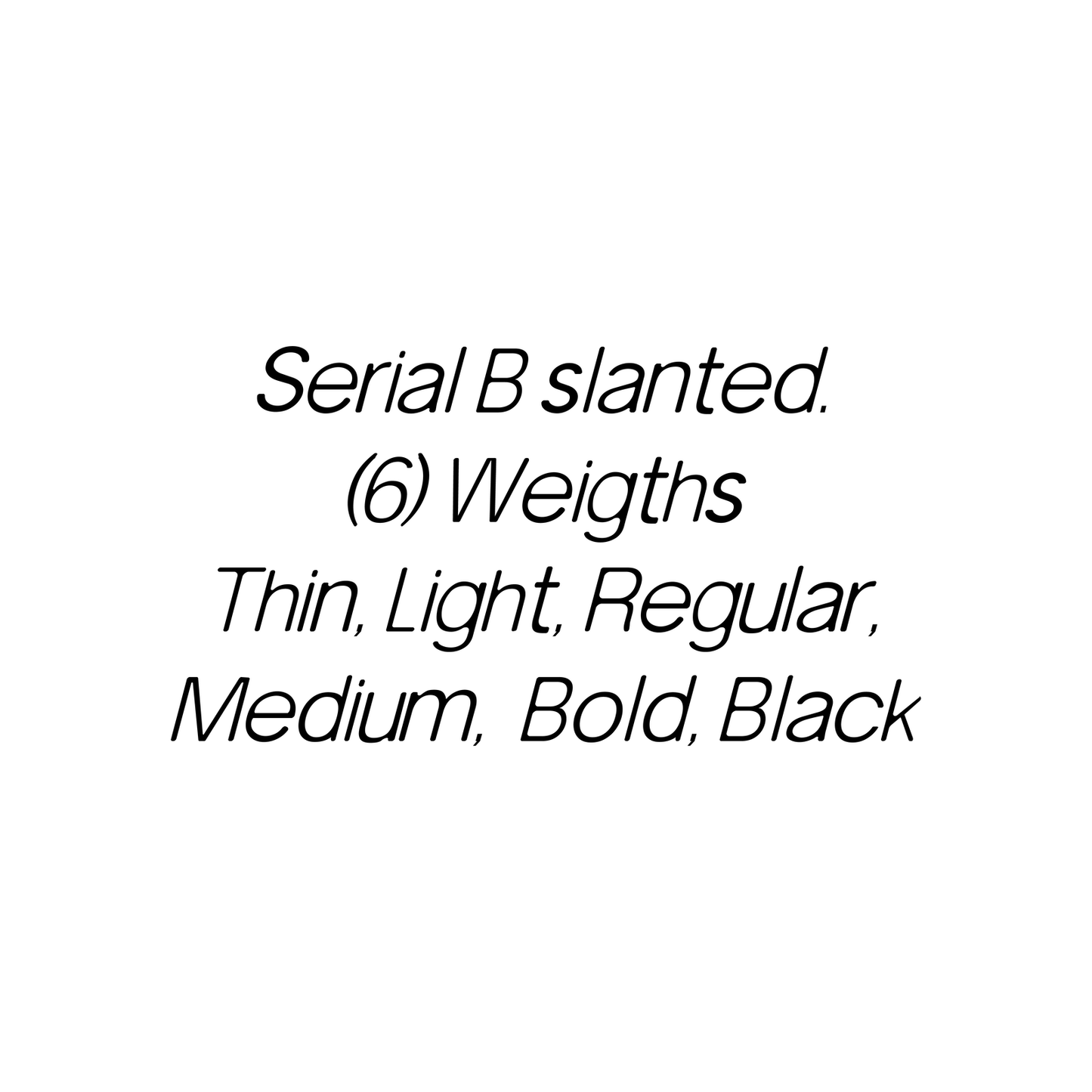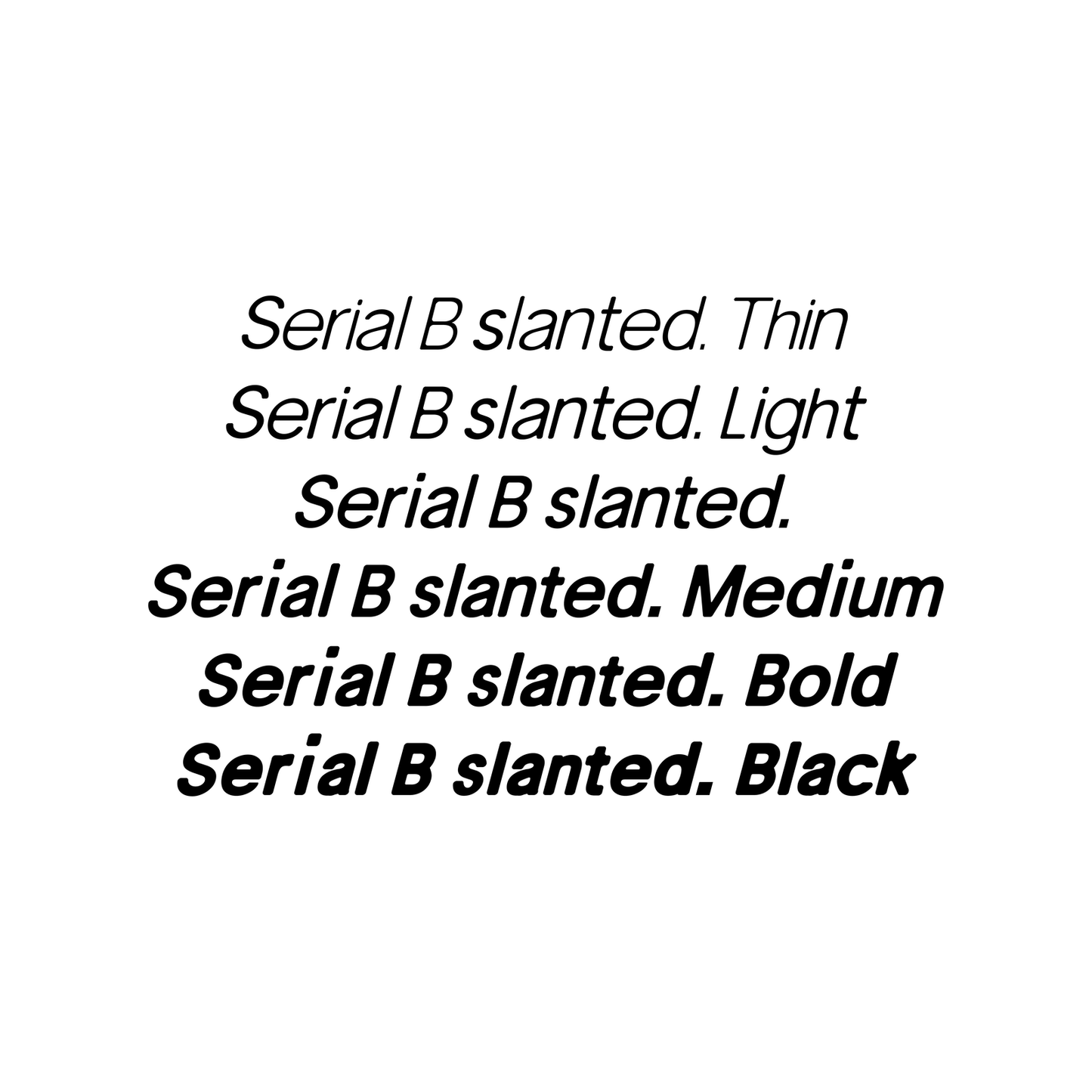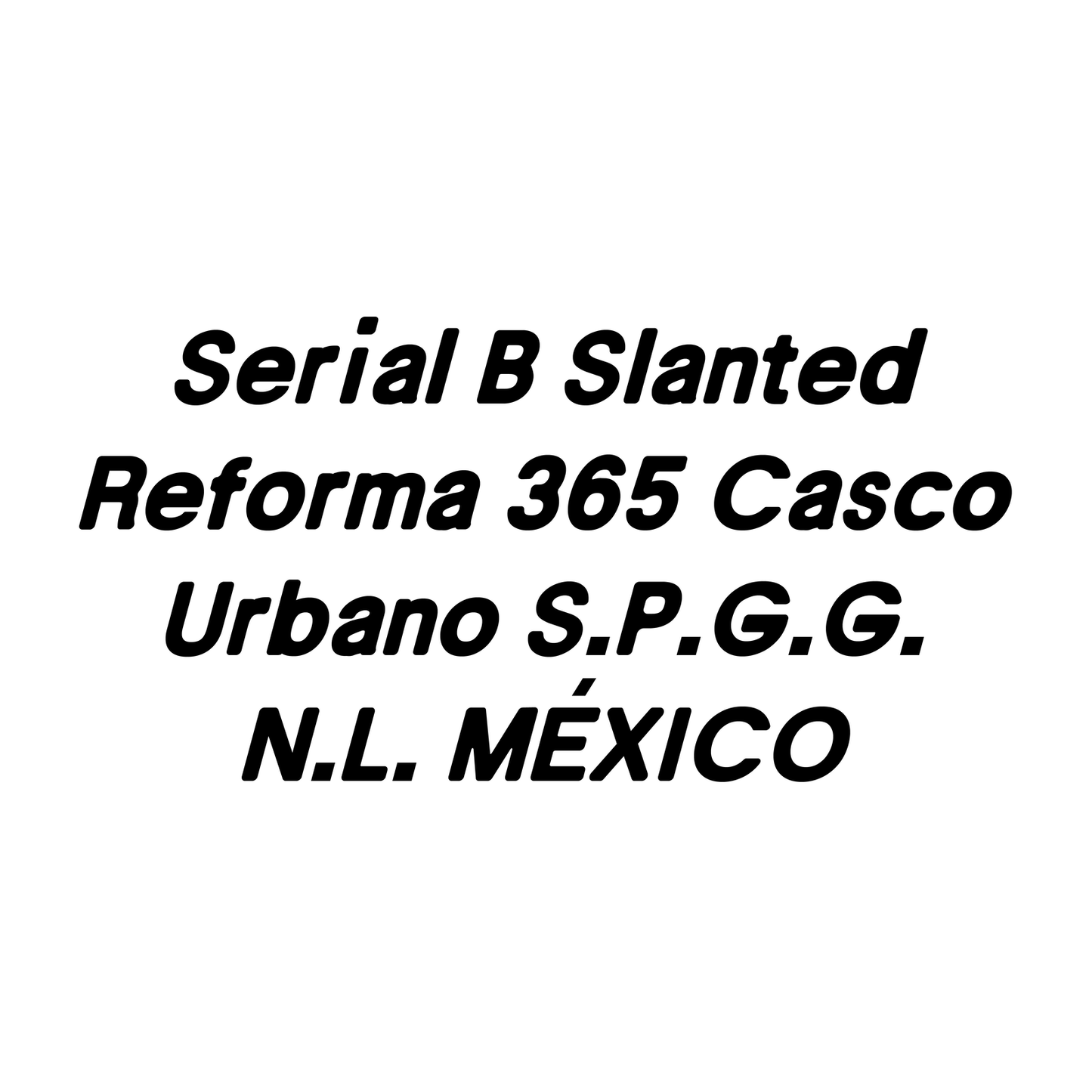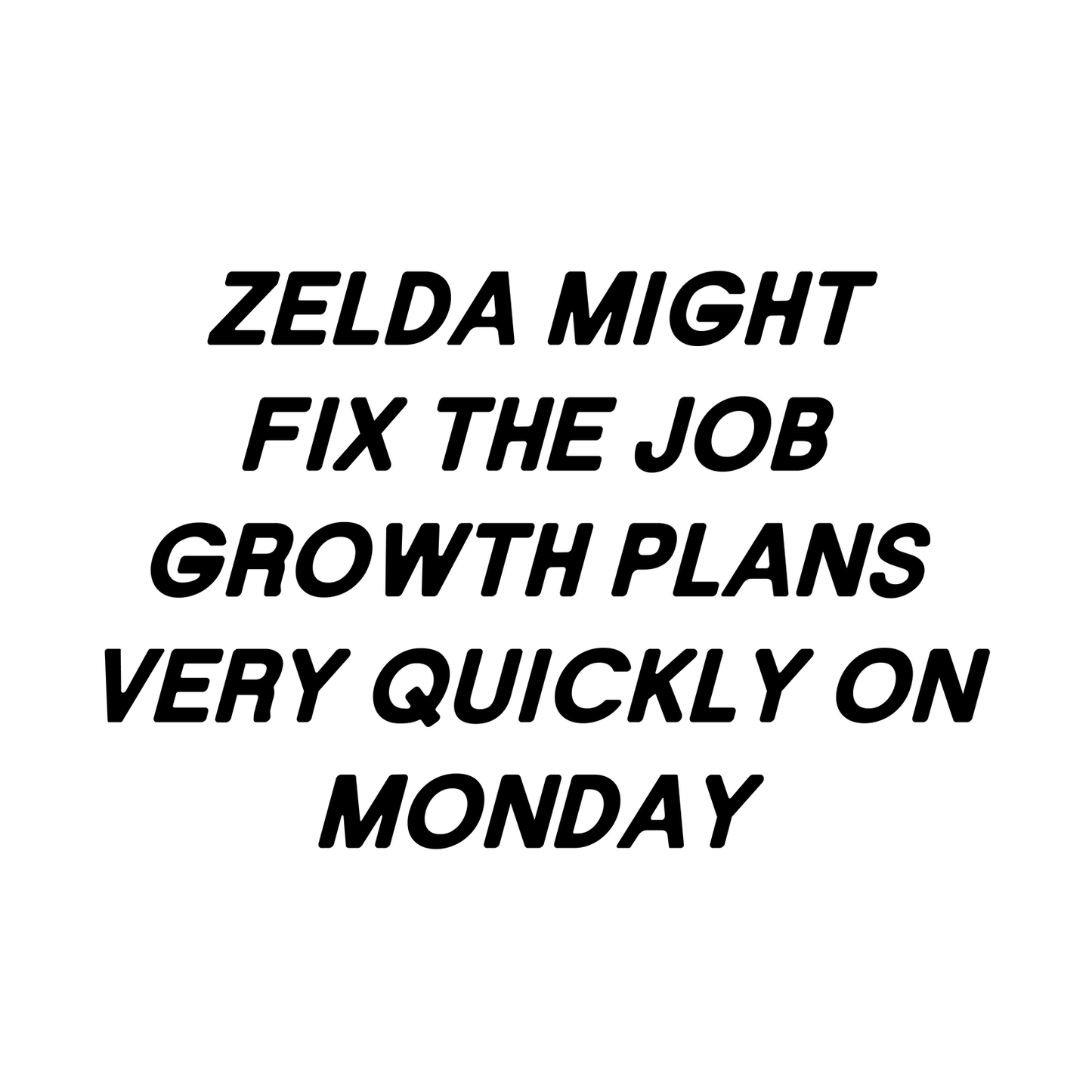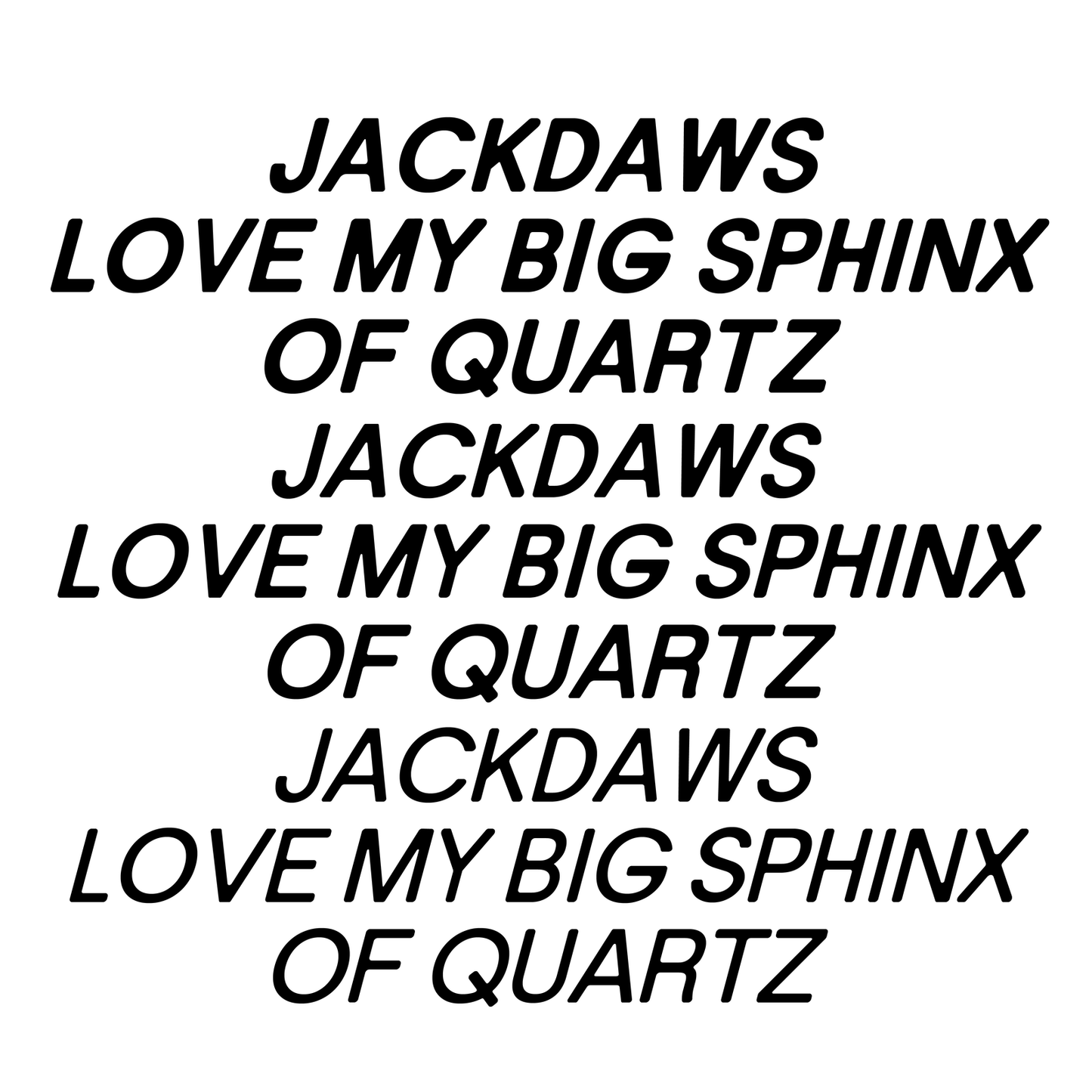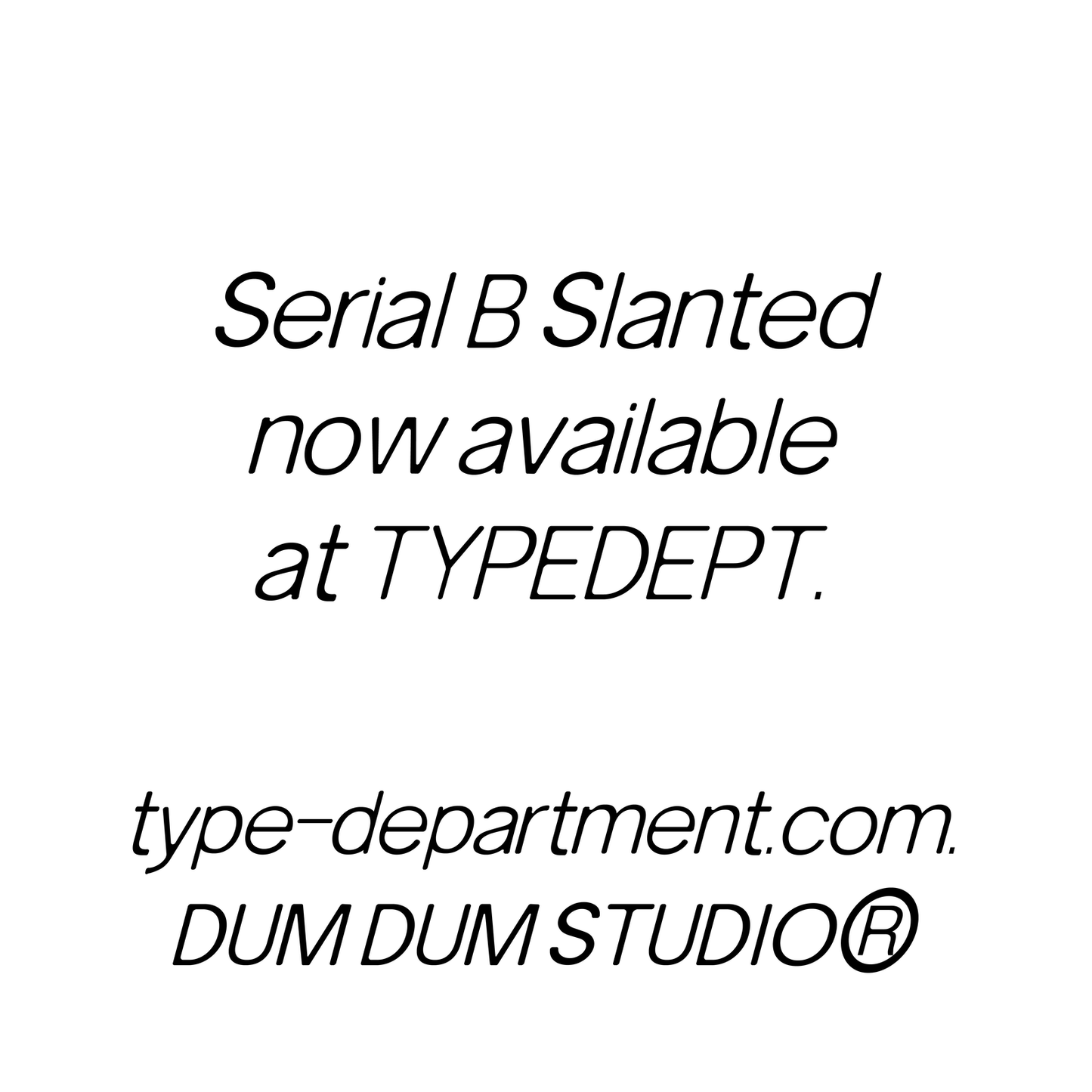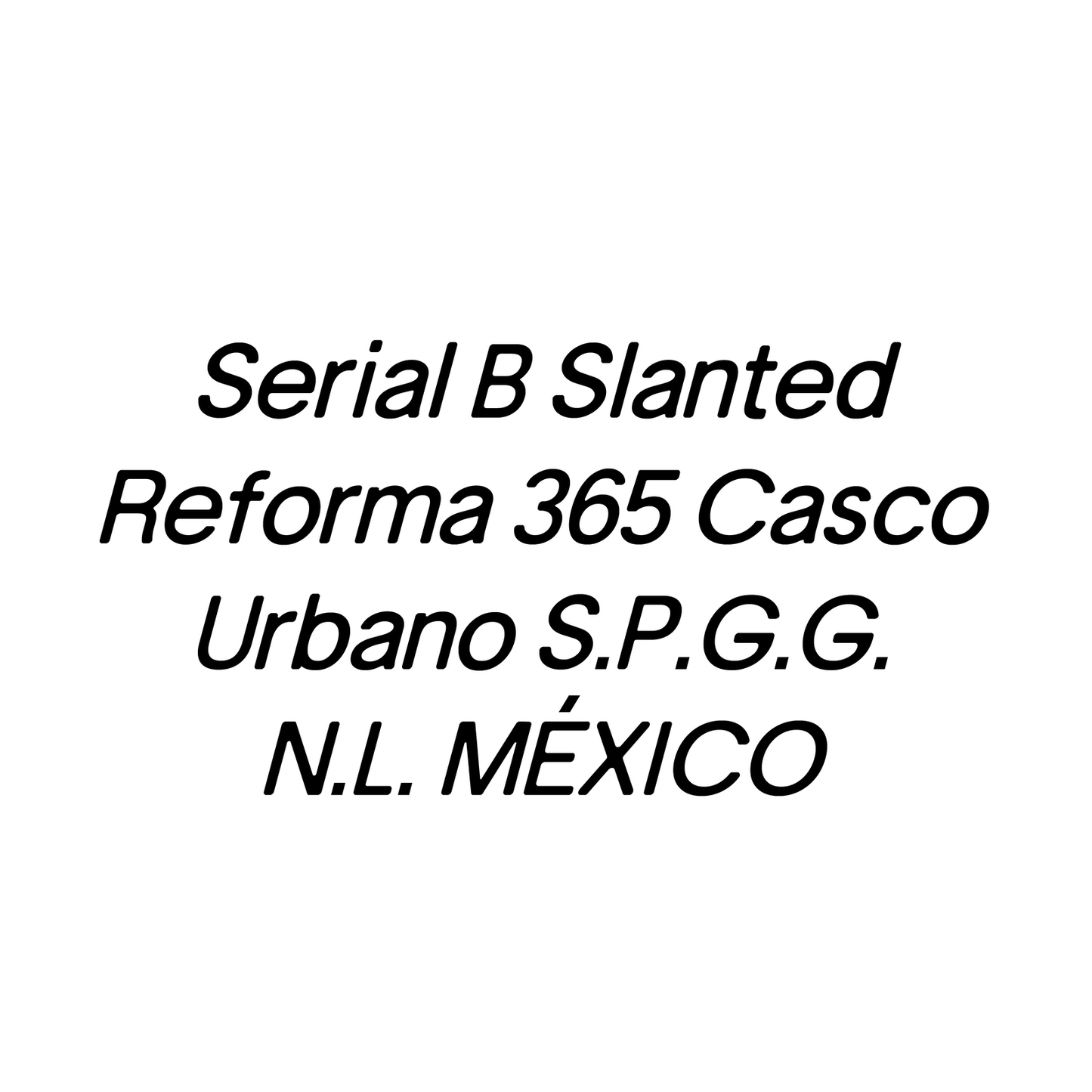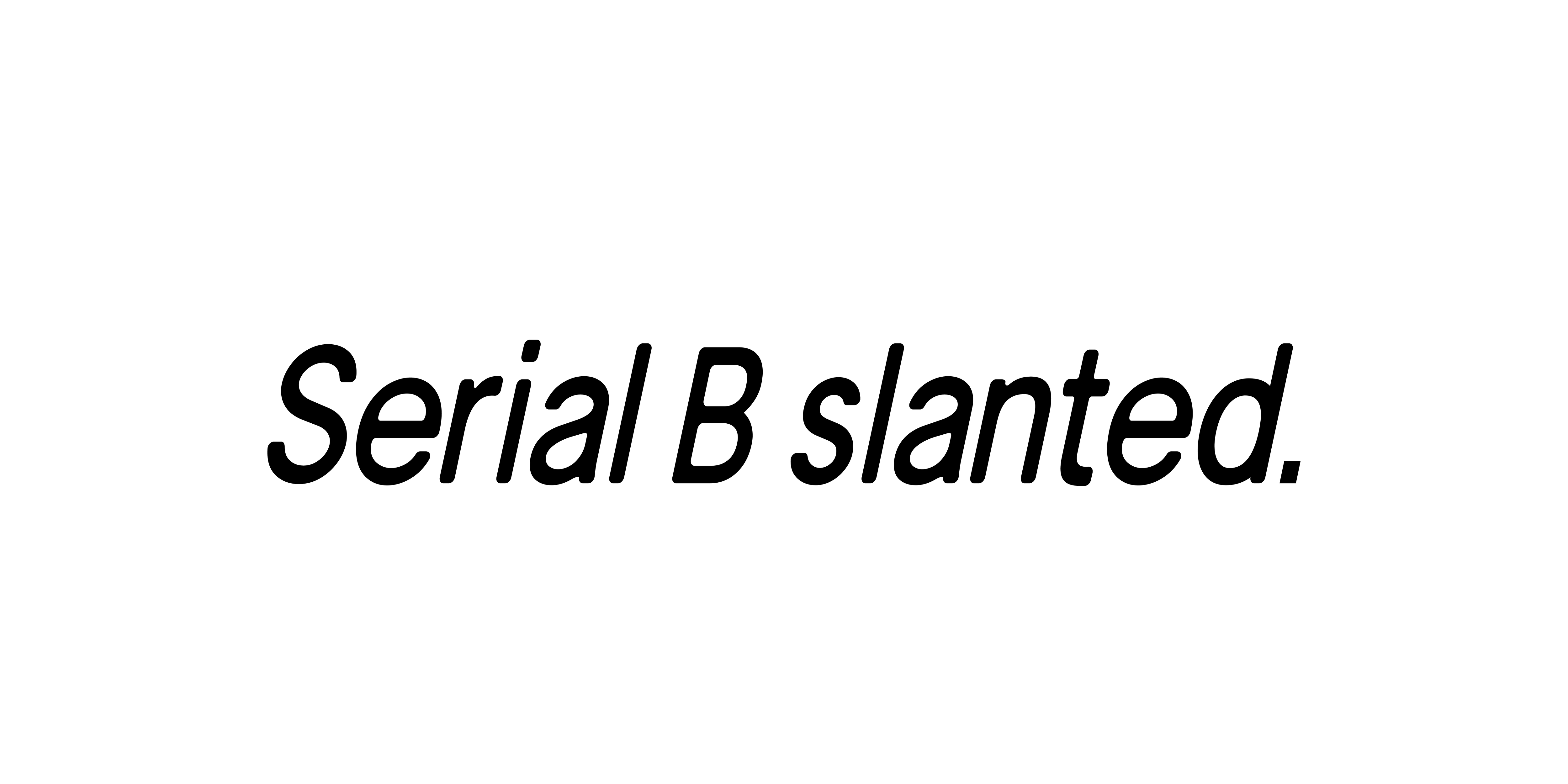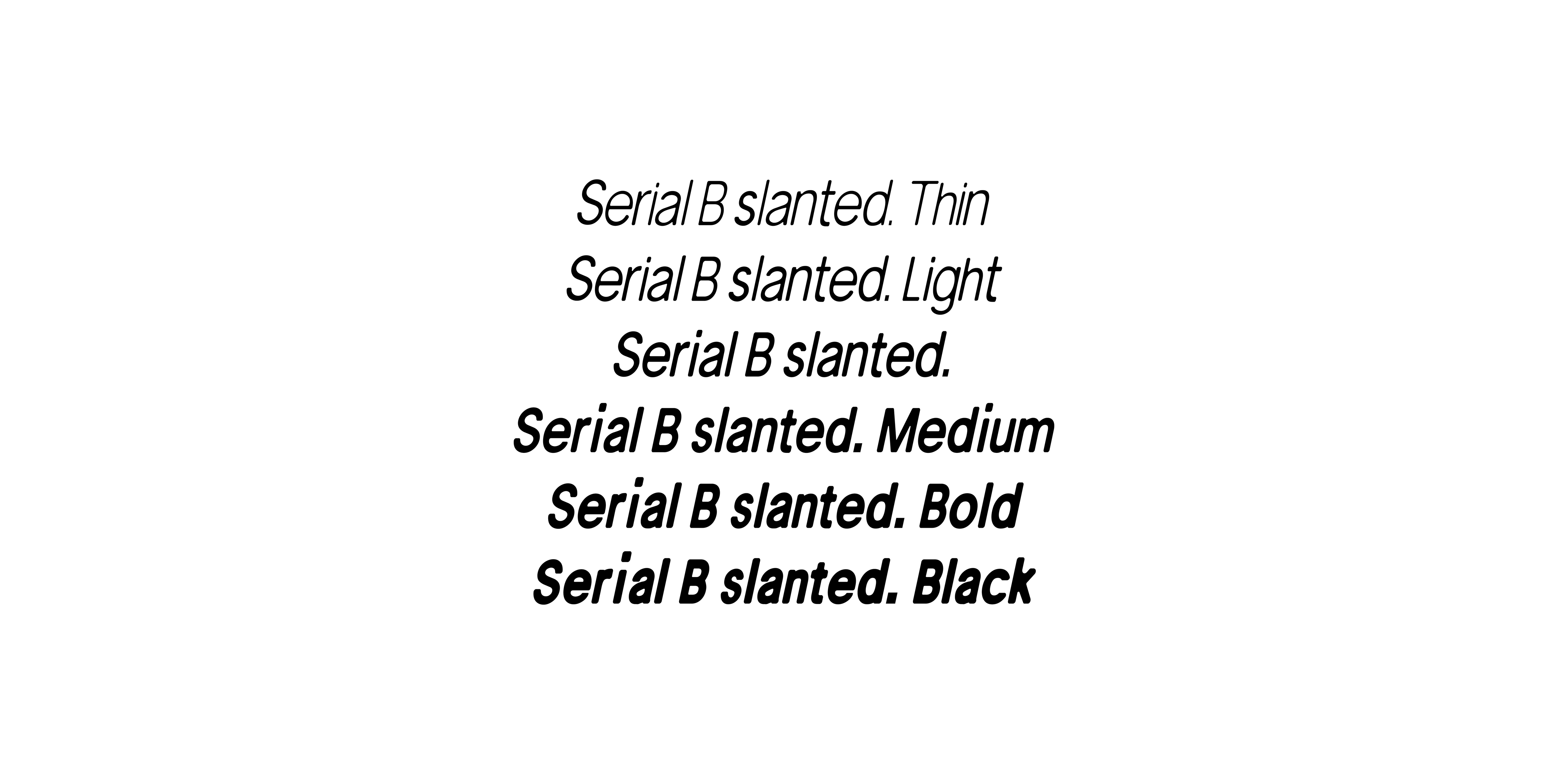
Serial B Slanted
Mario Julian Gutierrez
Serial B Slanted is a 15-degree slanted version of Serial B, adding a sense of motion and fluidity.
— 6 STYLES
— TOTAL GLYPHS: 491 GLYPHS
— LIGATURES
— ALTERNATES AND SUBSTITUTES